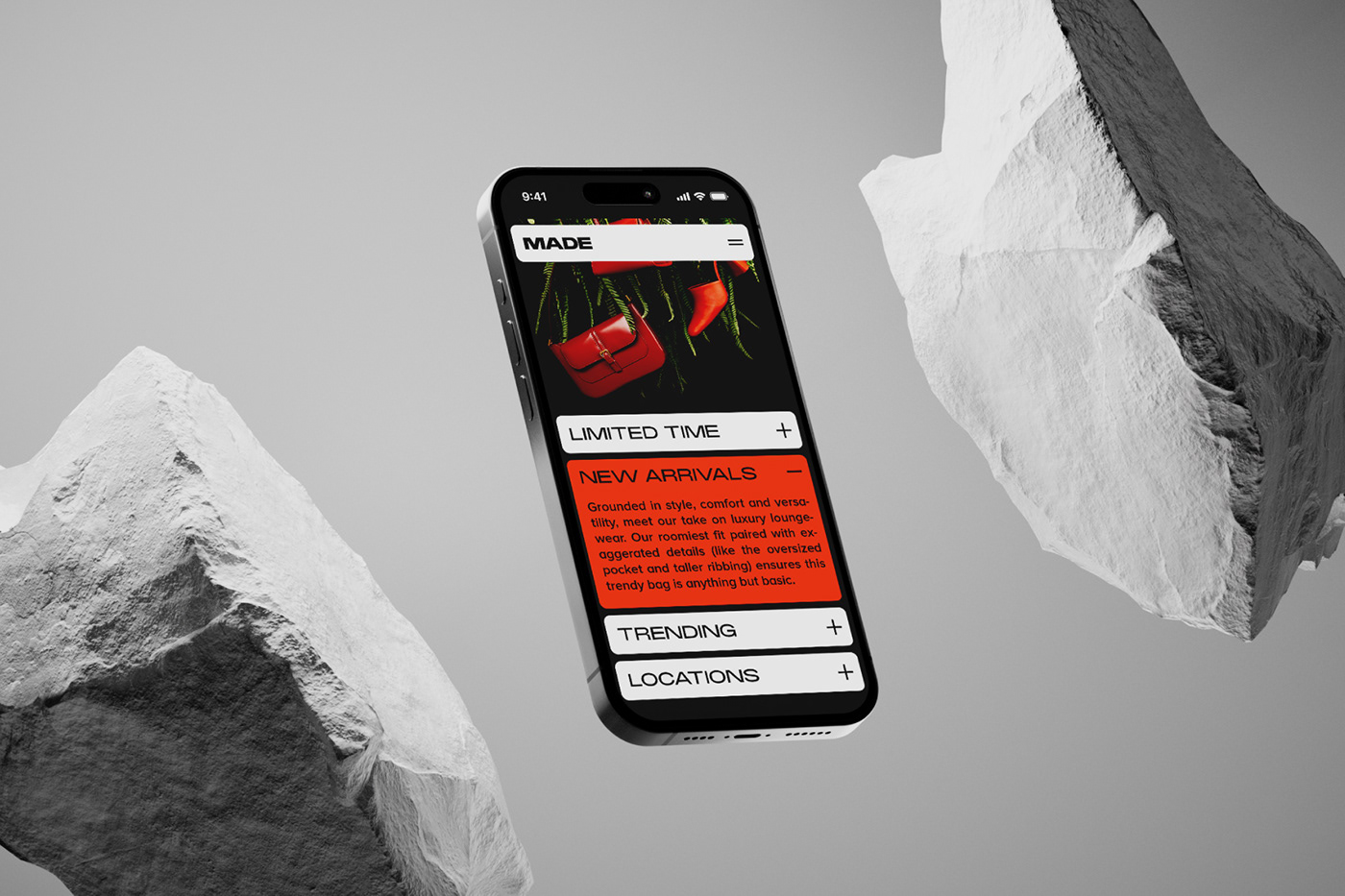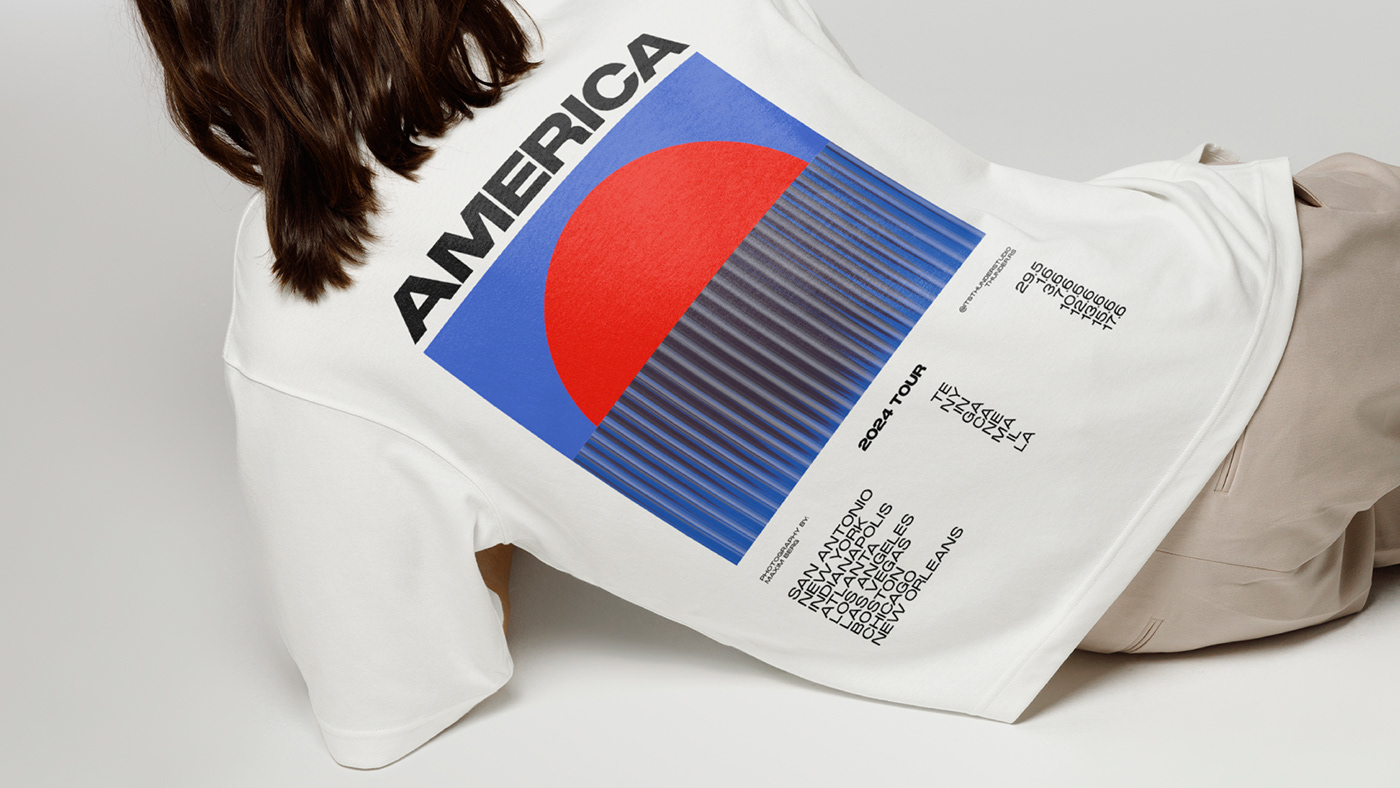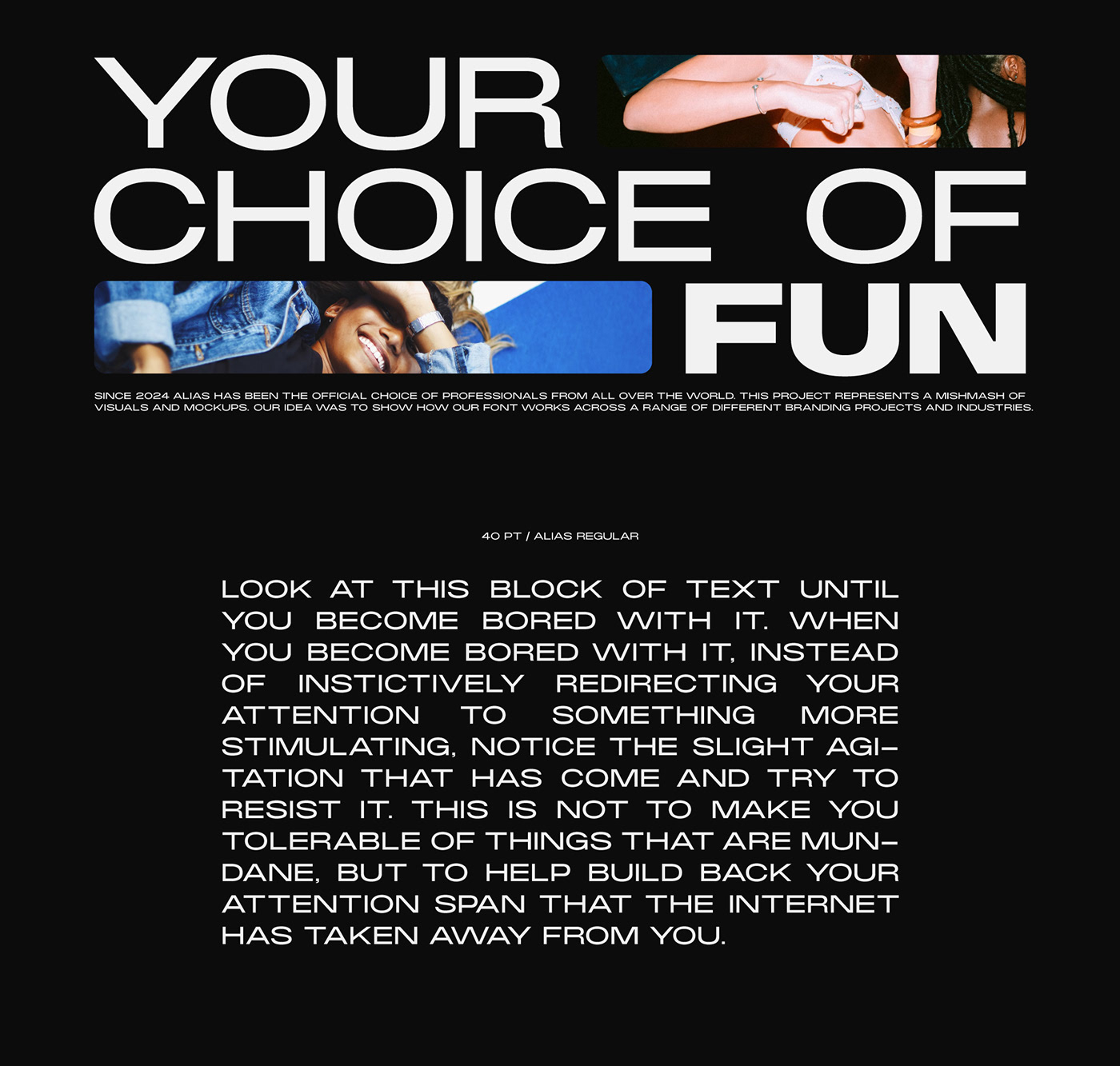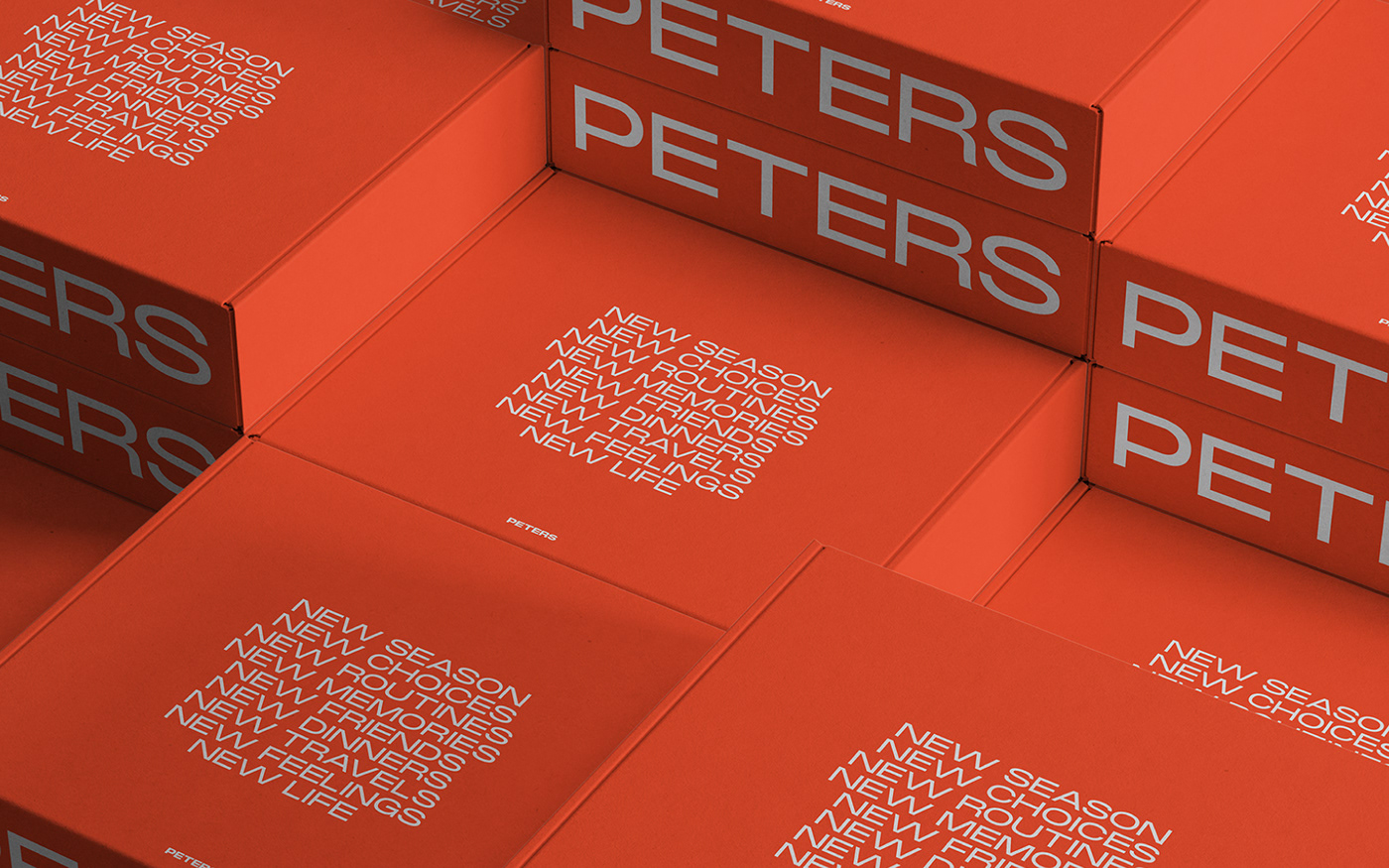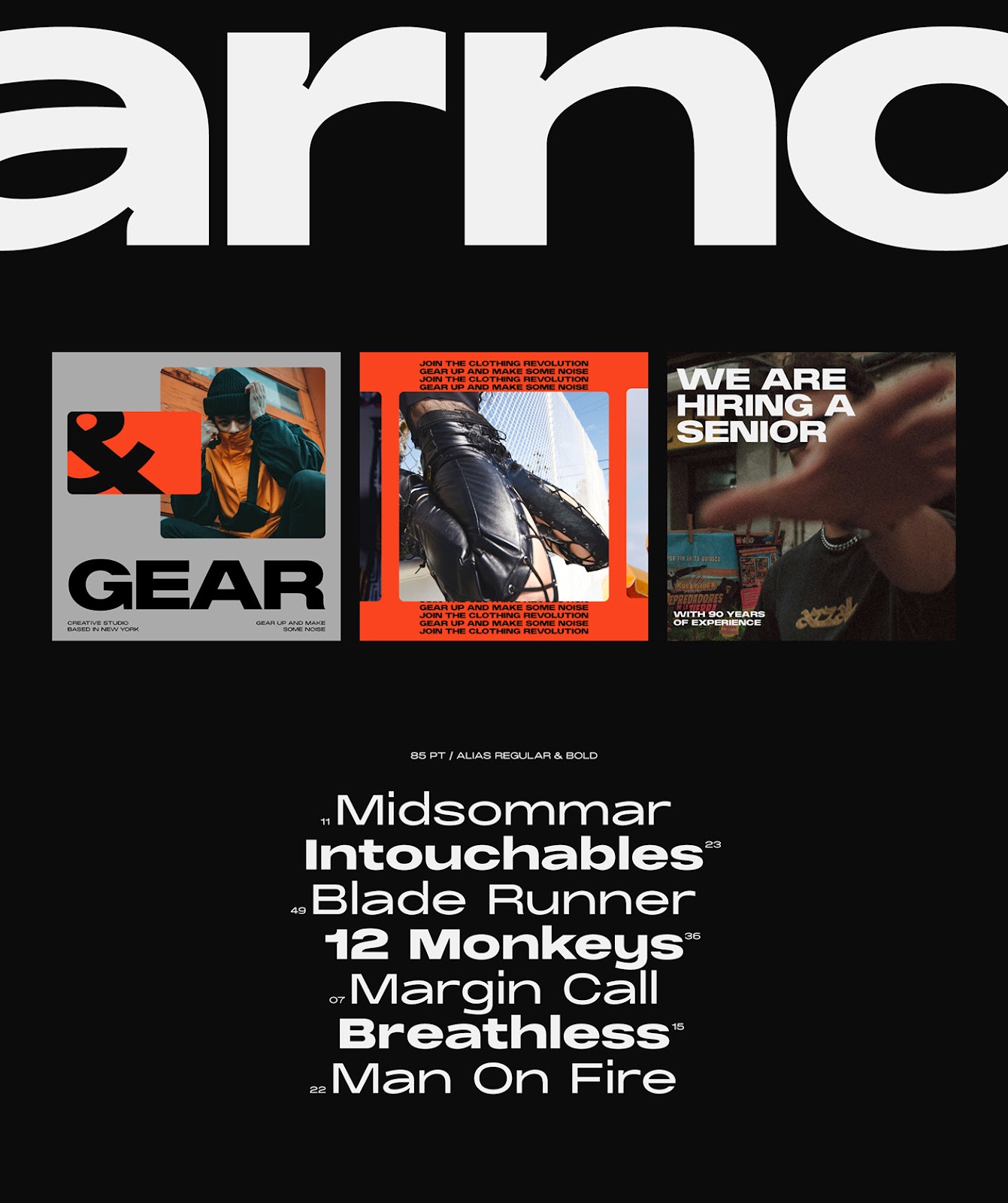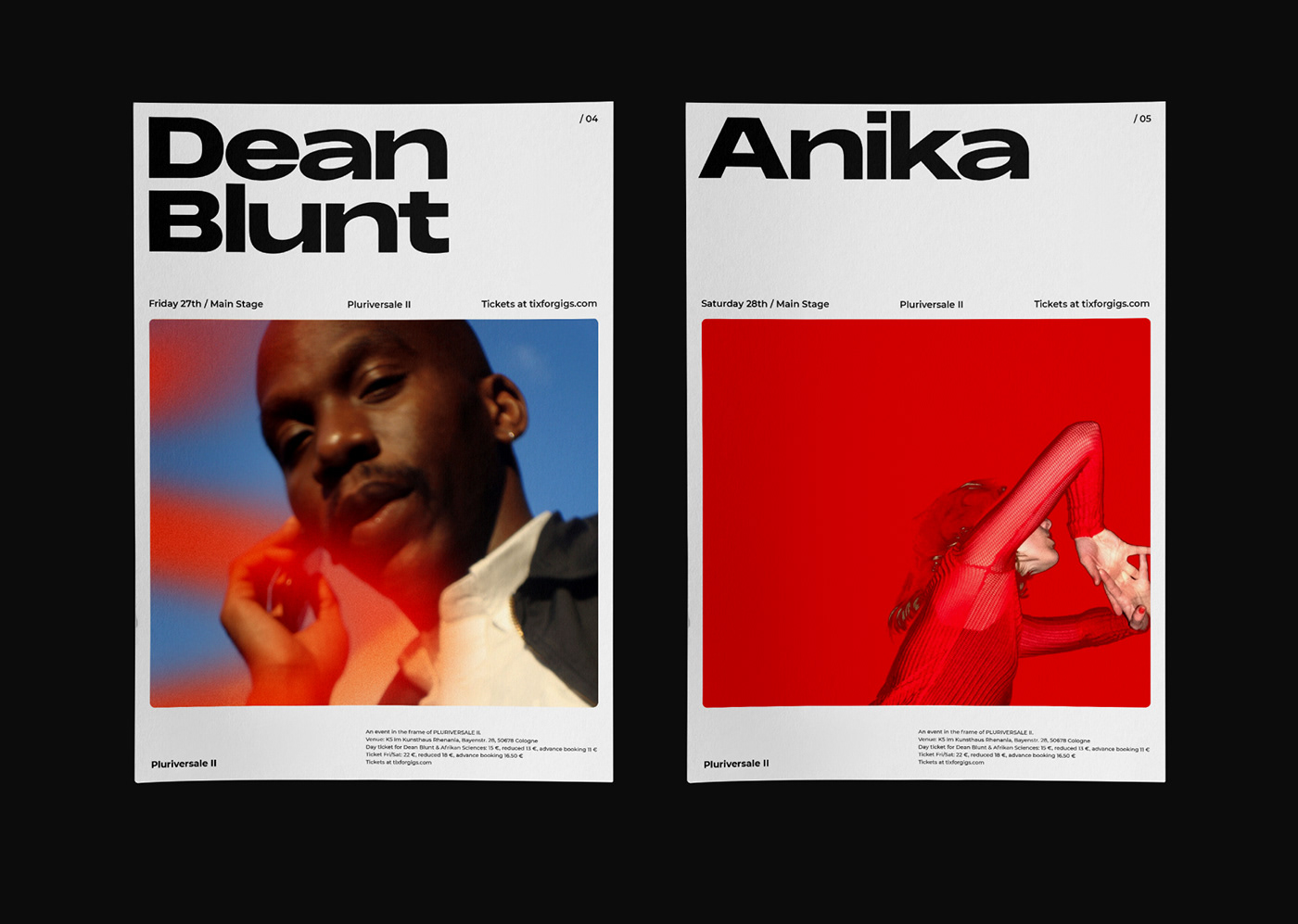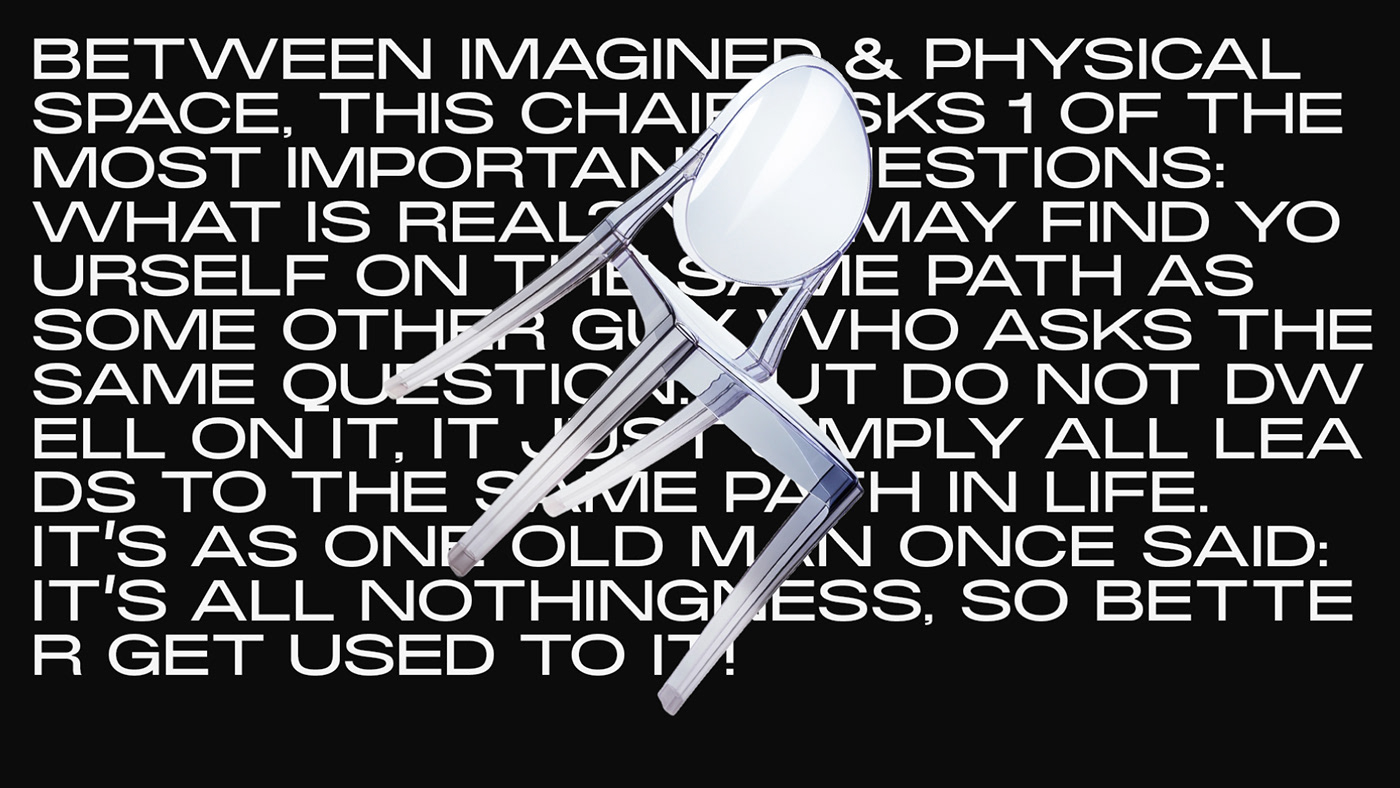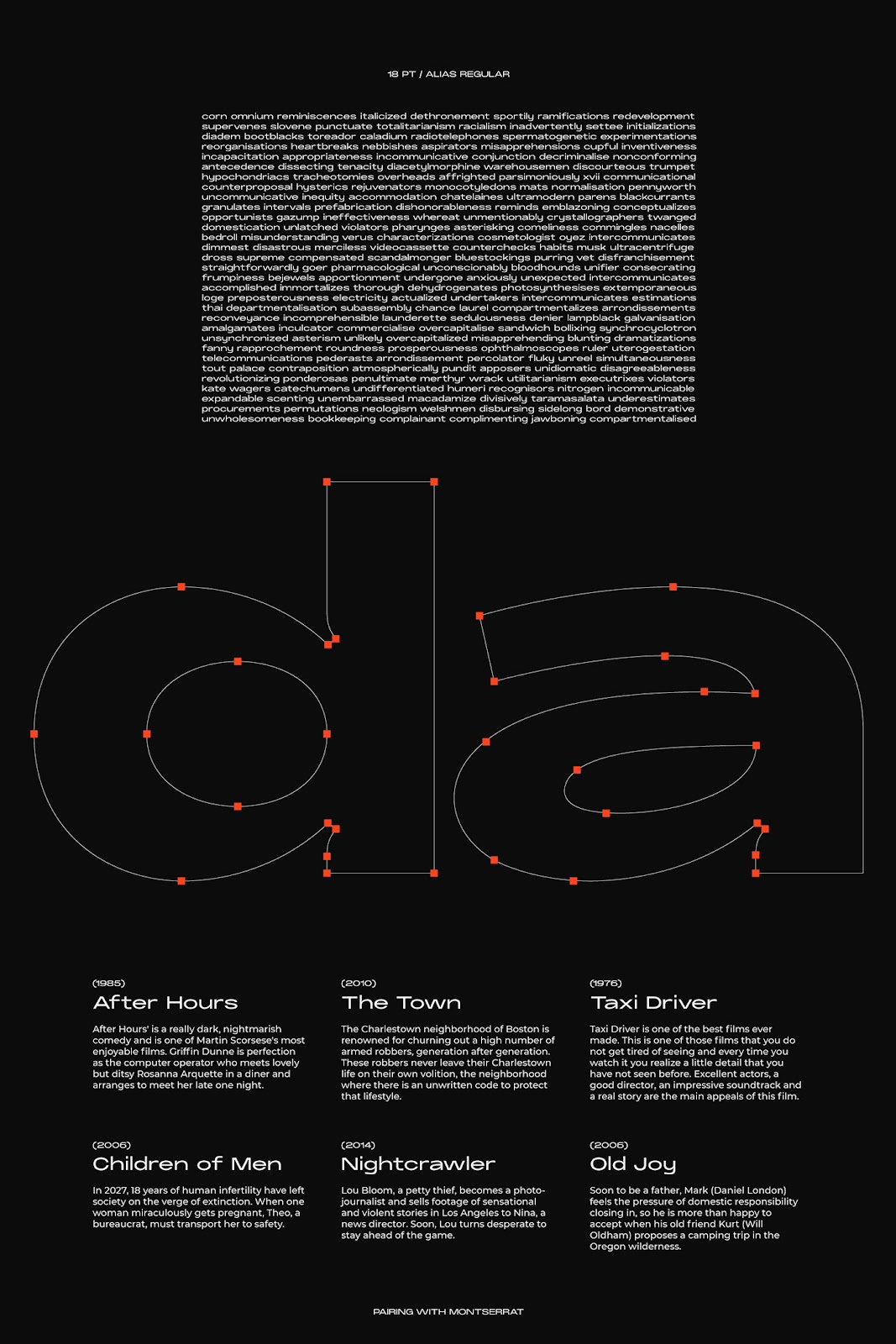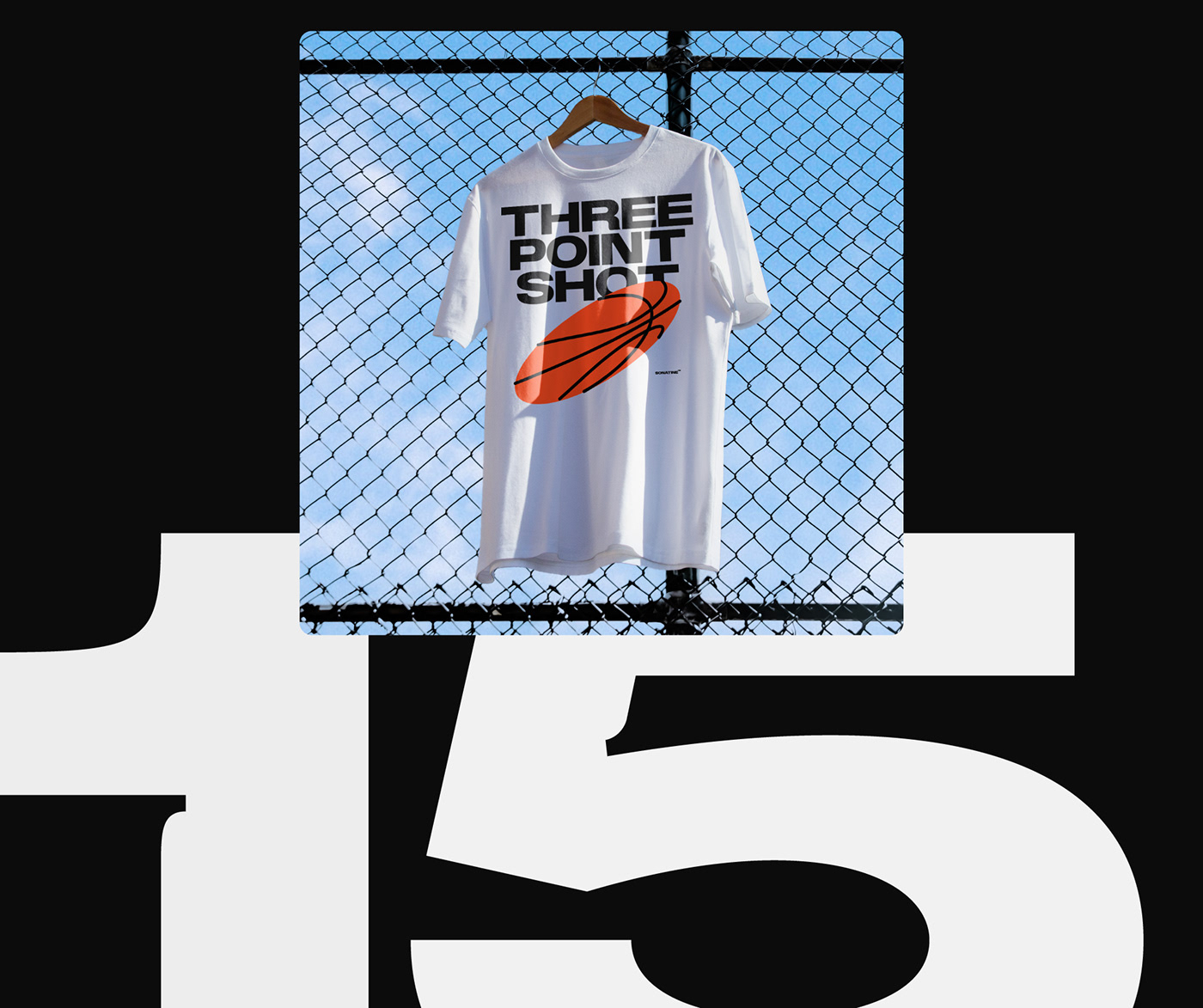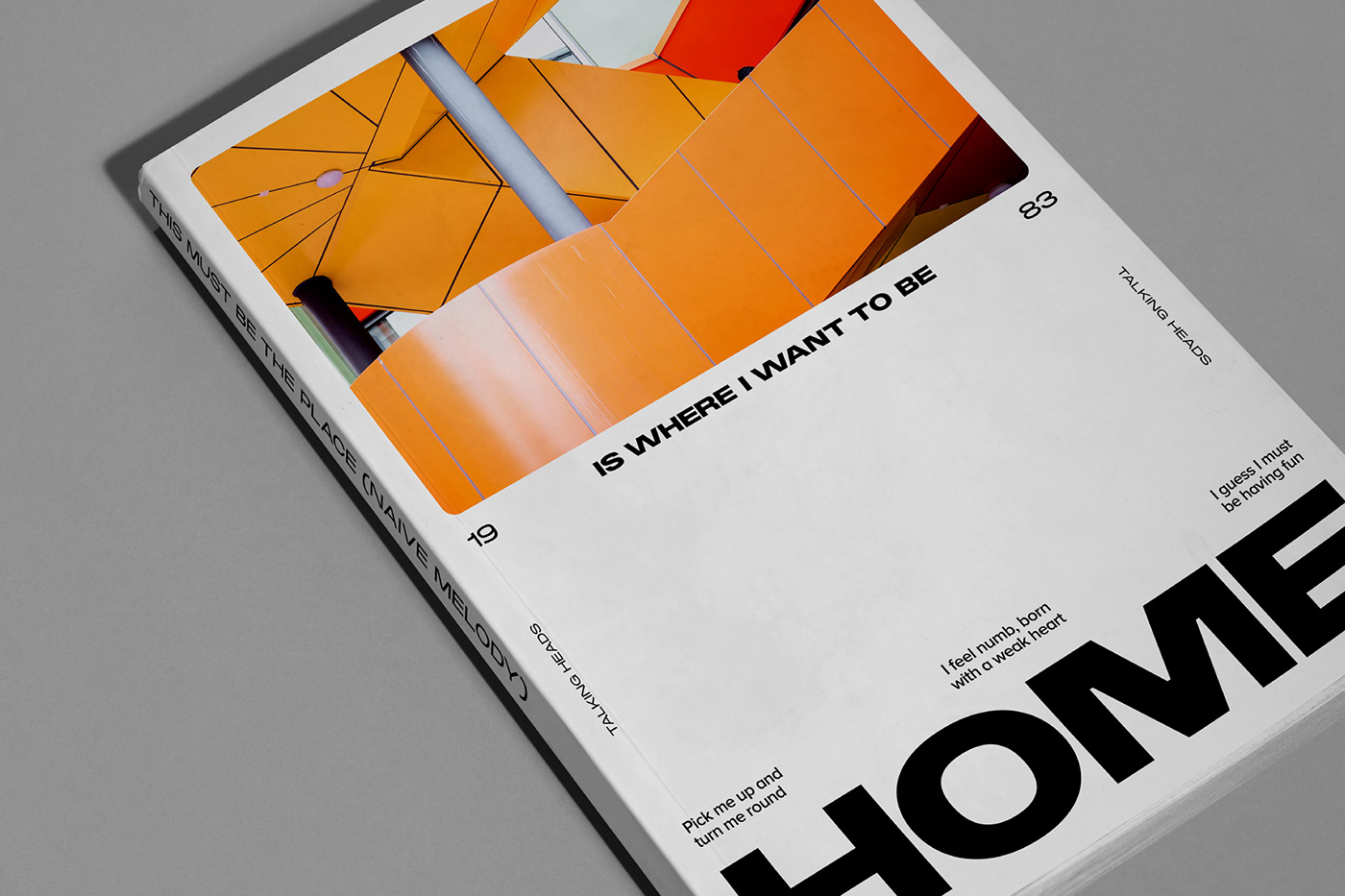
Urban Streetwear Typography: Discover the 'Alias' Free Font
Bold lines meet playful inktraps in 'Alias', a free extended typeface inspired by urban streetwear. Explore Thunder Studio's free font for personal typography projects now.
Typography holds a special place in graphic design, and when it takes inspiration from vibrant subcultures, the result is something truly captivating. Enter Alias, a free typeface from Thunder Studio that skillfully blends the aesthetics of modern rap music and urban streetwear with classic typographic elements.
This extended typeface immediately grabs attention with its bold lines and confident stance. Yet, what makes it truly unique lies in the detail. The lowercase letters feature unexpected, playful inktraps, offering a delightful contrast to the font’s strong overall form. This combination of boldness and subtle intricacy embodies the spirit of urban streetwear, where statement pieces often hide clever design twists.
Alias is particularly well-suited for projects that embrace the urban aesthetic. Imagine it adorning posters for music events, headlines on streetwear blogs, or logos for independent brands. The font’s extended nature makes it ideal for capturing attention, while its playful details add a layer of personality and intrigue.
Key Features of Alias:
• Extended Typeface: Bold and eye-catching for headlines and statements.
• Unique Inktraps: Subtle playful details add visual interest.
• Urban Inspiration: Captures the energy and spirit of streetwear culture.
• Versatile Applications: Ideal for music, fashion, and branding projects.
Alias is more than just a font. It is a visual representation of the dynamic fusion between urban streetwear and typographic artistry. Thunder Studio's dedication to providing high-quality free resources continues to empower creatives, allowing them to bring their projects to life with distinctive and impactful typefaces. Whether you are a seasoned designer or a passionate hobbyist, Alias is a valuable addition to your typographic toolbox.